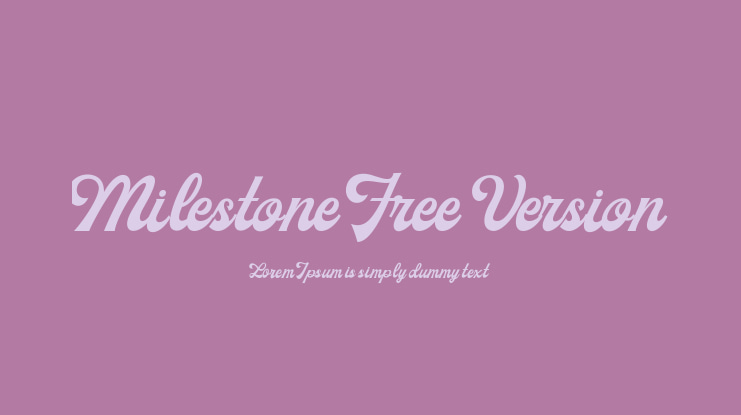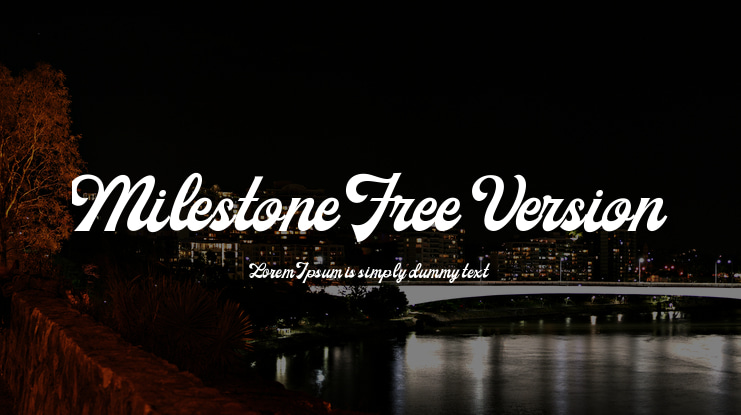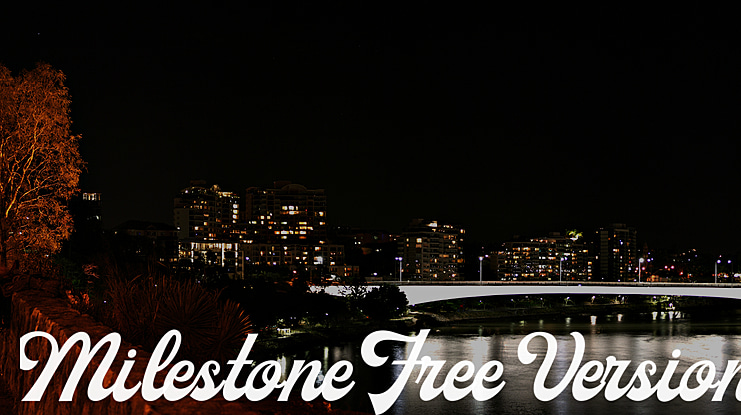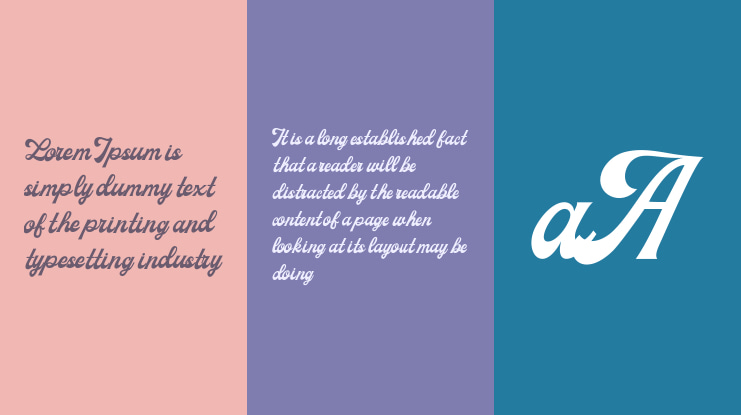
Milestone Free Version Font
Milestone inspired from Vintage baseball sport, sign painting, labeling, suitable for logo, product names packages, labels, old fashioned coffee shops, bars and everything with specific characteristics of past times. Milestone is great combine to create something good and vintage feel.